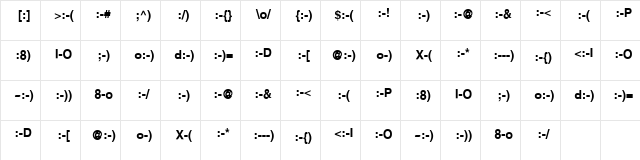
Emoticons Regular Font Preview
Emoticons Regular
Emoticons Regular Font Details
Design Context for Emoticons Typeface
Emoticons takes a measured approach to typography — its balanced proportions and neutral character make it a reliable workhorse for both digital and print work.
Pro Tip: Use Emoticons in both headline and body roles to test its range before committing to a single application.